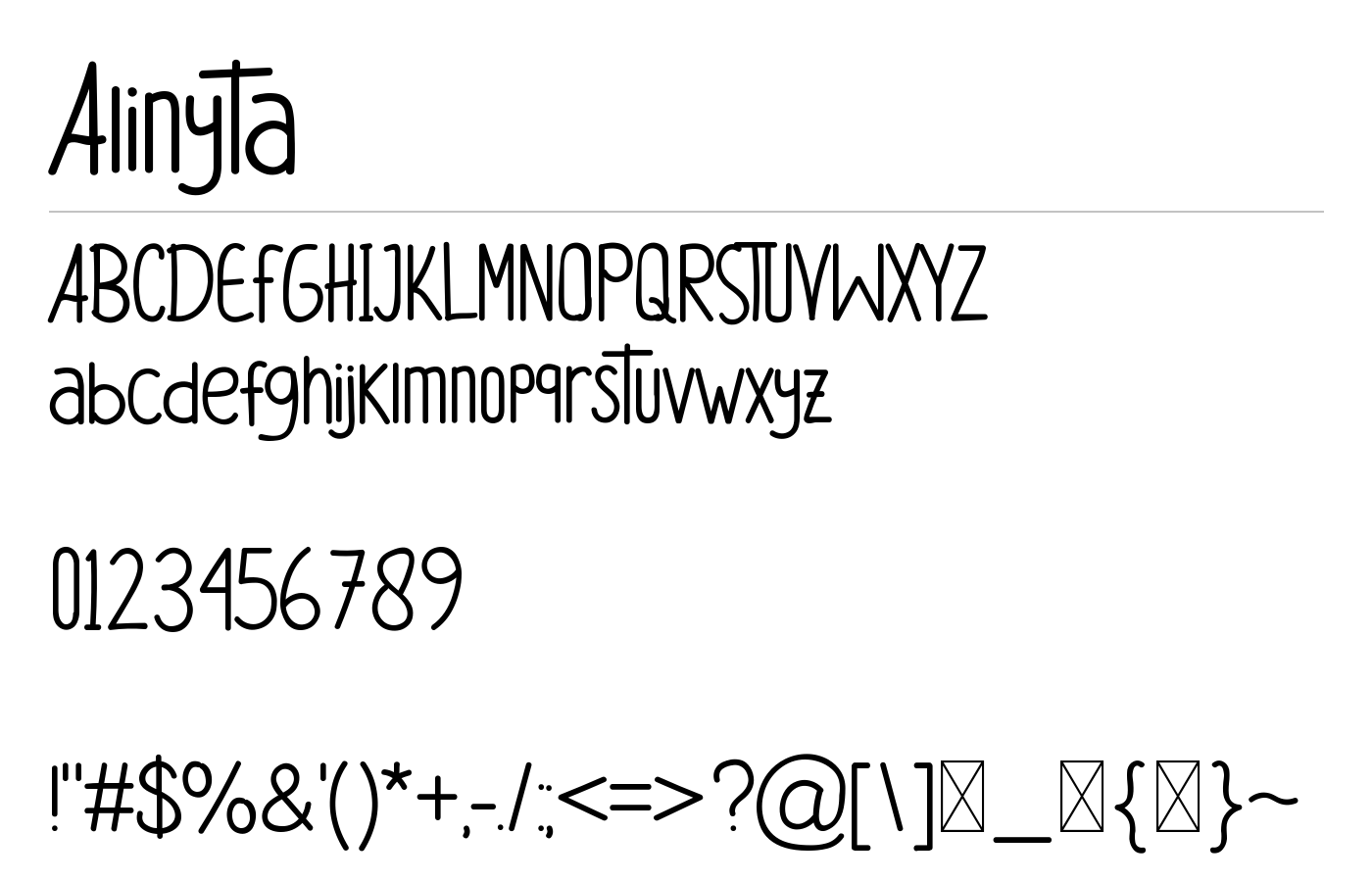
Alinyta is a quirky, narrow sans serif font with a playful, hand-drawn feel. Its tall, slender letterforms and slightly irregular strokes give it a casual yet distinctive personality, making it perfect for creative branding, informal headlines, and friendly editorial designs where a unique, approachable vibe is desired. This font shines best when used in contexts that benefit from a personal, artistic touch without sacrificing readability.
Alinyta Font
About Alinyta Font
| Font family | Alinyta Font |
| Designer | Frederik Aristaputra |